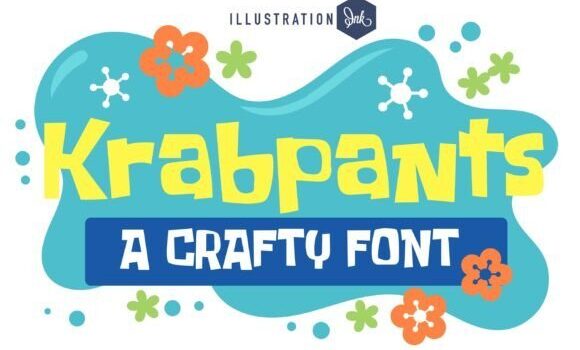
krabpants
Krabpants Font – Free Download Introduction to Krabpants Font This hand-crafted font is a whimsical sans serif with chunky, thick, whimsical lettering. 📸 Preview Gallery 6 images 📌 Product Name Krabpants Font 👤 Author Illustration Ink 📂 Category Explore ⬇️